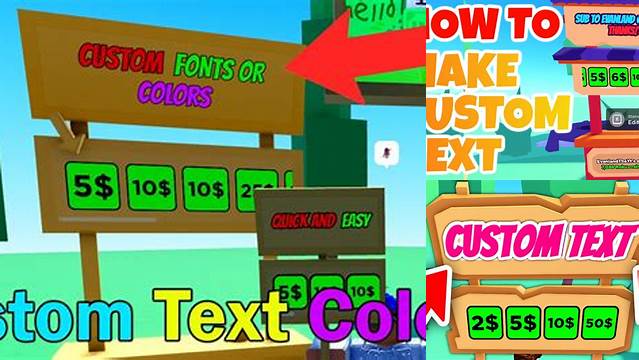
Custom Fonts In PLS Donate: The Ultimate Guide
Creating a unique and eye-catching booth in PLS Donate is crucial for attracting more donations. One way to stand out is by using custom fonts. But how do you actually do it? This guide will walk you through the process step-by-step, making it easy for you, guys, to personalize your booth and make it truly your own. So, let's dive in and learn how to make your booth the most visually appealing one on the server!
1. Understanding the Basics of PLS Donate Fonts
Before we jump into the specifics of creating custom fonts, it's essential to understand how fonts work within PLS Donate. The game uses a system that allows you to display text on your donation boards, but it has some limitations. You can't just upload any font file; instead, you need to use specific codes and formatting to achieve the desired look. This might sound a bit daunting, but don't worry! We'll break it down into manageable steps.
The importance of choosing the right font cannot be overstated. A well-chosen font can make your booth stand out, convey your personality, and most importantly, make your text readable. A poorly chosen font, on the other hand, can make your booth look cluttered and unprofessional, potentially deterring donations. Think about the message you want to convey – are you going for a fun and playful vibe, or a more serious and professional look? Your font choice should reflect this. Remember, first impressions matter, and your booth is often the first thing players will see.
2. Finding Font Resources for PLS Donate
One of the first steps in creating custom fonts is finding the resources you'll need. There are many websites and tools available that offer a wide variety of fonts, often for free. However, it’s crucial to ensure that the fonts you use are compatible with PLS Donate’s formatting system. This means you'll need to find resources that provide font codes or allow you to convert fonts into a format that the game can understand. Look for websites that specialize in Roblox-compatible fonts or offer font generators specifically for PLS Donate.
Exploring different font styles is key to finding the perfect match for your booth. Consider browsing font libraries that categorize fonts by style, such as serif, sans-serif, script, and display fonts. Each style has its own unique feel, and experimenting with different styles can help you discover a font that truly reflects your personality and the message you want to convey. Don't be afraid to try out unconventional fonts – sometimes, the most unique choices are the ones that stand out the most. Just remember to prioritize readability – a beautiful font is useless if no one can read it.
3. Using Online Font Generators for PLS Donate
Online font generators are fantastic tools for creating custom fonts for PLS Donate. These generators typically allow you to input text and then select from a range of font styles, colors, and effects. The generator then provides you with the necessary codes that you can copy and paste into your PLS Donate booth description. This method is often the easiest and most efficient way to create custom fonts, especially for beginners. The great thing about online generators is that they often preview how the text looks, so you can see what your font looks like before you even copy the code. This saves a lot of time and hassle.
Exploring the features of different online font generators is essential to find the one that best suits your needs. Some generators offer more customization options than others, allowing you to adjust things like font size, spacing, and even add shadows or outlines. Take the time to try out a few different generators and see which one offers the features and ease of use that you're looking for. Also, be sure to read reviews and check out tutorials to get the most out of the generator you choose. By understanding the various features, you can create really unique and cool fonts that make your booth stand out.
4. Step-by-Step Guide to Creating Custom Fonts
Let's walk through a step-by-step guide to creating custom fonts in PLS Donate. This will cover everything from finding fonts to implementing them in your booth. Follow these steps closely, and you'll be creating stunning custom fonts in no time!
- Choose your font: Browse font resources and select a font that fits your booth's aesthetic.
- Use a font generator: Input your desired text into an online font generator.
- Customize the font: Adjust settings like size, color, and effects to your liking.
- Copy the code: Once you're happy with the font, copy the generated code.
- Paste into PLS Donate: Paste the code into your booth description in PLS Donate.
- Preview and adjust: Check how the font looks in the game and make adjustments as needed.
Testing different font combinations can also help you achieve the perfect look. Try pairing different fonts for your headings and body text, or experiment with different color combinations to see what works best. The key is to find a balance between creativity and readability. You want your booth to stand out, but you also want players to be able to easily read your donation message. A little experimentation can go a long way in achieving the perfect font combination. Don't be afraid to try out wild fonts. You never know which ones will work!
5. Implementing Custom Fonts in PLS Donate Booth Description
Now that you've created your custom font code, the next step is implementing it in your PLS Donate booth description. This is where your creativity comes to life, and you get to see your custom font in action within the game. The process involves accessing your booth settings, pasting the font code into the description box, and then previewing the changes to ensure everything looks as expected. Let's break down this process step-by-step to make it super clear and easy for you, guys.
Accessing your booth settings is the first step. When you're in PLS Donate, approach your booth and look for the interaction prompt – it usually says something like